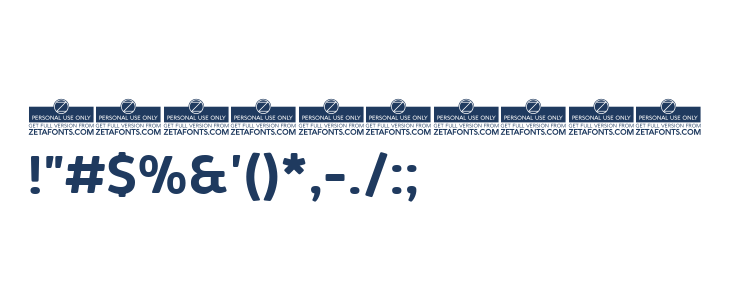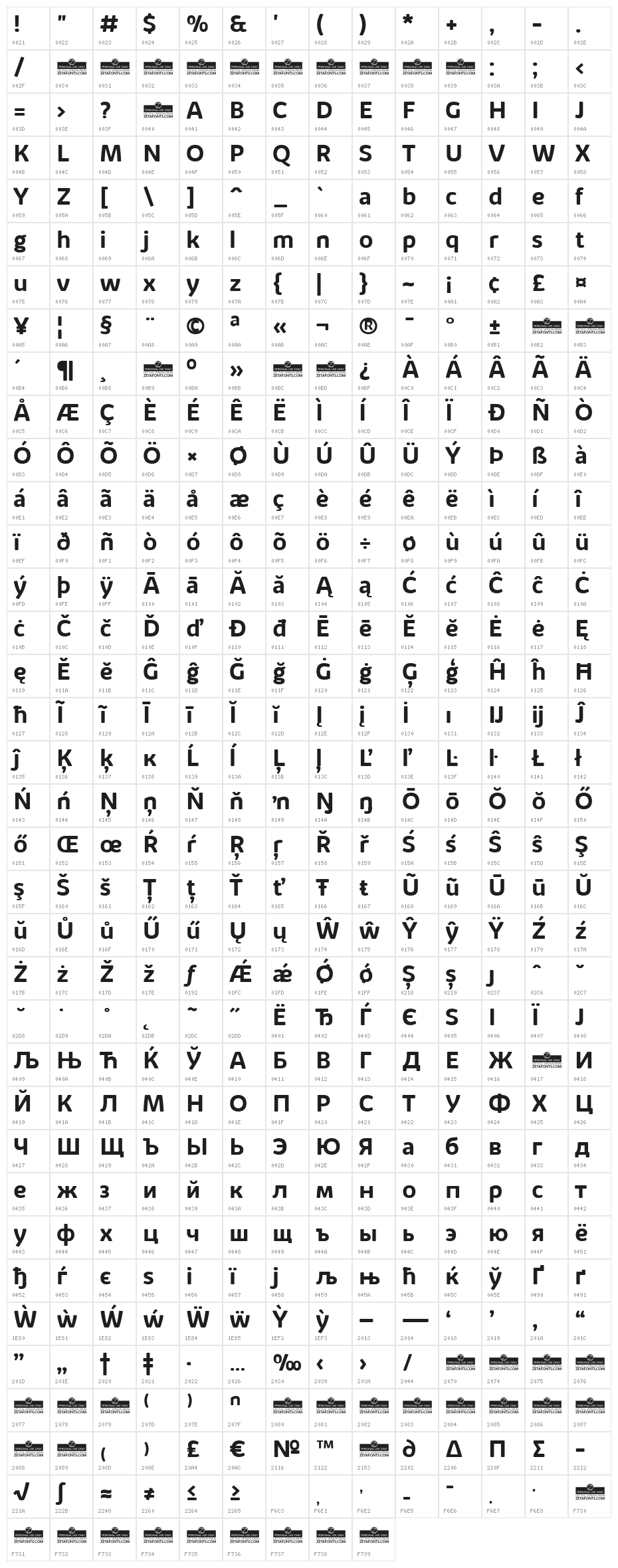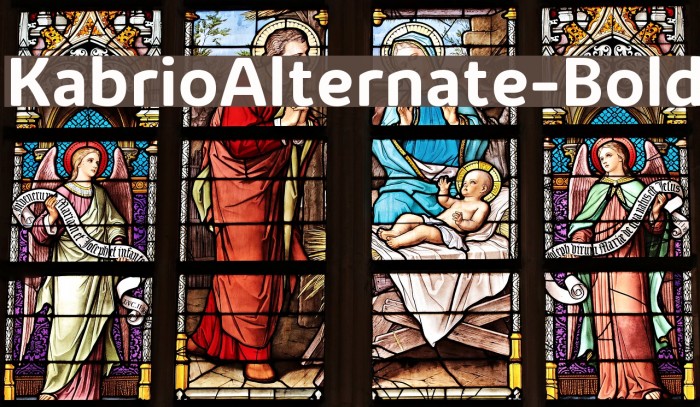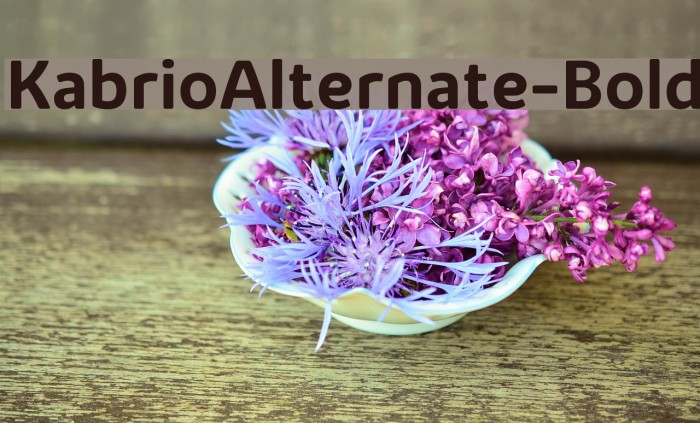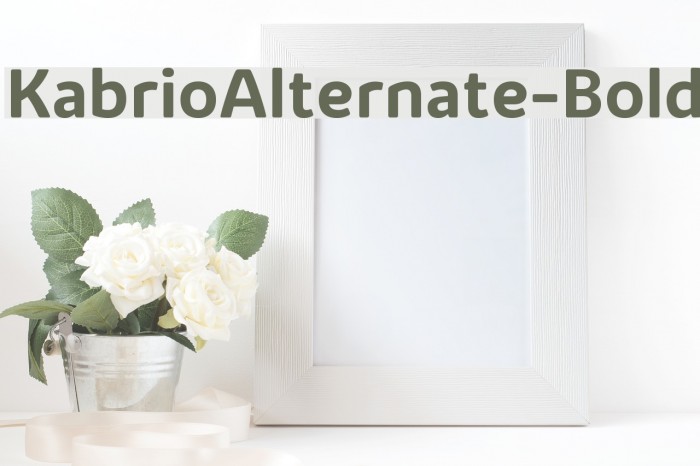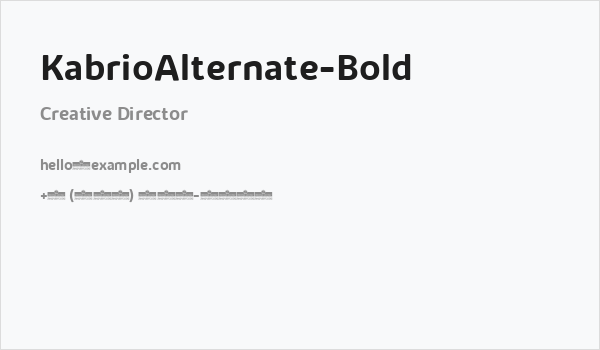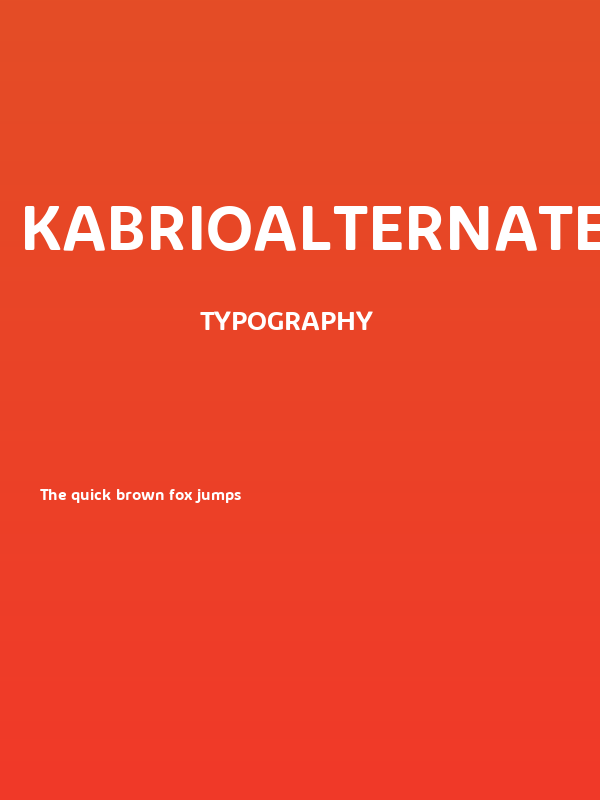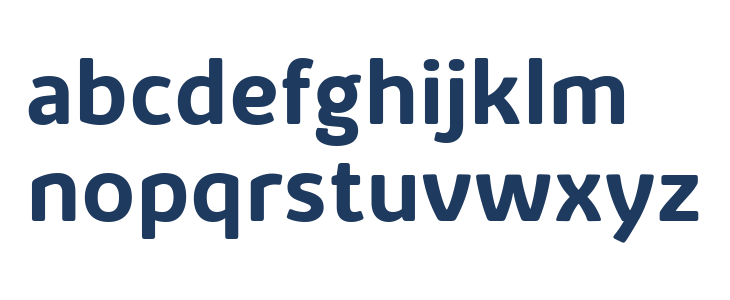
KabrioAlternate-Bold Font
KabrioAlternate-Bold Description
This font features a bold and modern sans-serif style with smooth curves and clean lines, offering a contemporary and approachable appearance. The characters are well-balanced, with a consistent stroke width that provides a uniform look across both uppercase and lowercase letters. The rounded edges add a friendly and inviting touch, making it versatile for various design applications. The numerals and special characters maintain the same boldness and clarity, ensuring readability and visual harmony throughout the typeface.
| Proposed Projects | Ideal for branding, advertising, web design, and packaging projects where a modern and approachable look is desired. |